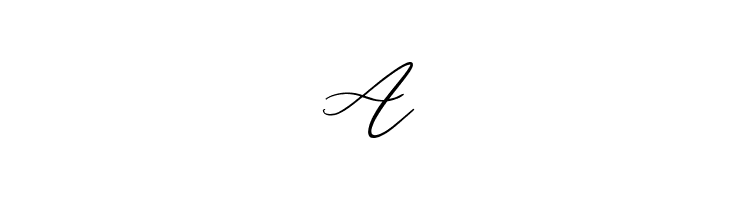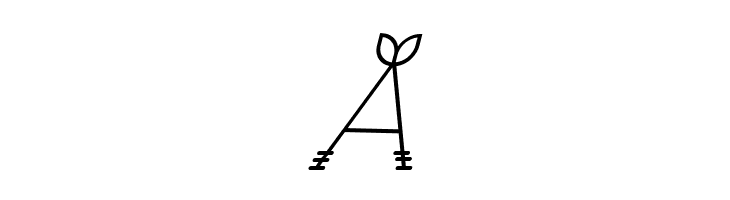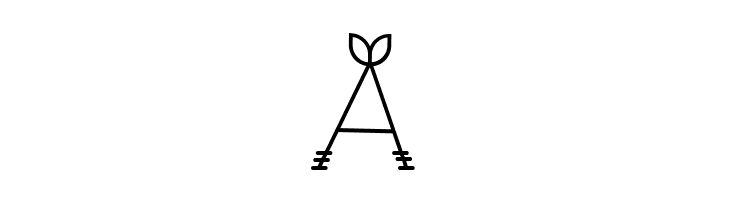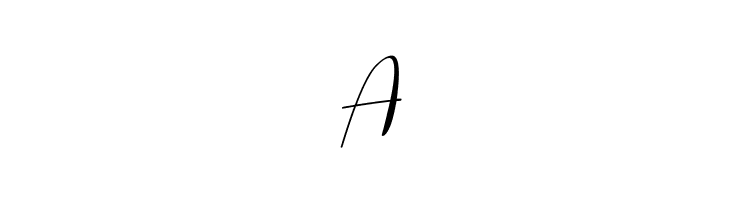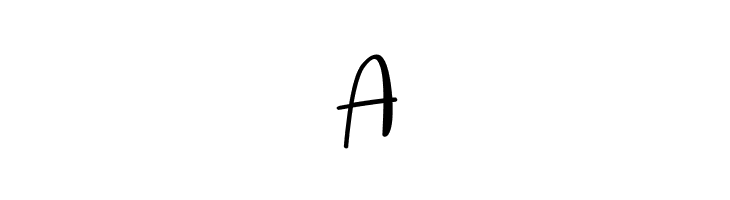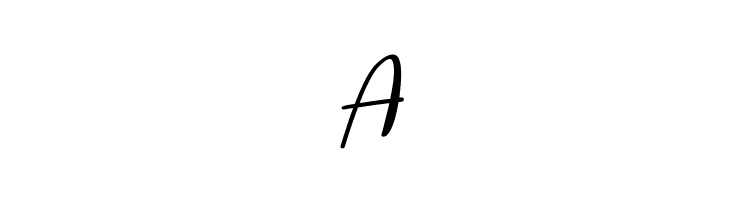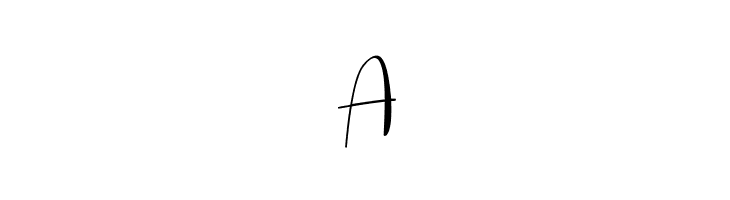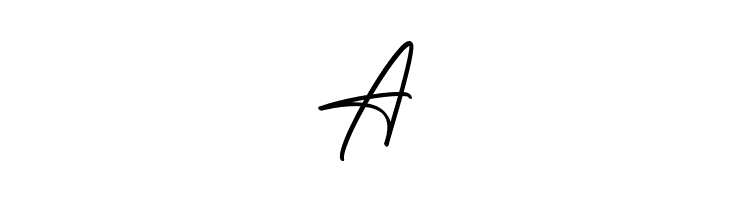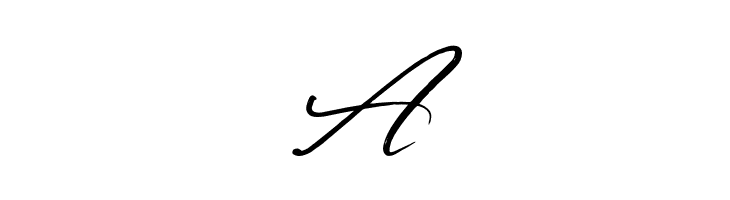
A playful, cursive-like script with smooth, interconnected strokes.
An elegant, flowing script font with a sophisticated, handwritten style.
A bold, flowing script font with expressive, interconnected strokes.
A bold, italic script font with a lively, handwritten style.
An elegant, flowing script font with a sophisticated, handwritten style.
A bold, geometric font with a modern and structured design.
A bold, italic sans-serif font with a modern and dynamic style.
A modern, dotted italic font with a digital aesthetic.
A dot-based, grid-like font with a digital and futuristic style.
A bold, playful font with a cartoonish, hand-drawn style.
Bold, high-contrast icon set with a narcotics and crime theme.
A playful, cursive script font with whimsical loops and embellishments.
A flowing, cursive font with elegant, looping strokes and a handwritten appearance.
A playful, rounded font with a whimsical, hand-drawn style.
A playful, hollow font with rounded, smooth curves and a whimsical style.
An elegant and fluid cursive script font with interconnected characters.
A bold, graffiti-style font with angular, dynamic letterforms.
A fluid, cursive font with an elegant handwritten style.
A flowing, cursive script font with elegant, connected strokes.
A flowing, cursive font with elegant, sweeping strokes and a sophisticated appearance.
An elegant, cursive font with a fluid, handwritten style.
A modern, elegant script font with flowing, cursive strokes and medium contrast.
An elegant script font with flowing, cursive strokes and ornate details.
A playful, handwritten font with smooth, rounded edges and a casual style.
A graceful script font with flowing, cursive letterforms and a handwritten aesthetic.
A bold, natural handwritten font with expressive, fluid strokes.
Elegant cursive script with a handwritten feel.
A playful, handwritten font with bold, dynamic strokes and whimsical character designs.
A lively, flowing handwritten font with elegant cursive letterforms.
A graceful and fluid handwritten font with elegant, flowing strokes.
A bold, hand-painted style font with an organic, textured appearance.
A whimsical, nature-inspired font with decorative uppercase and clean, handwritten lowercase letters.
A whimsical, nature-inspired italic font with leaf-like details.
A playful and elegant handwritten font with flowing, interconnected letterforms.